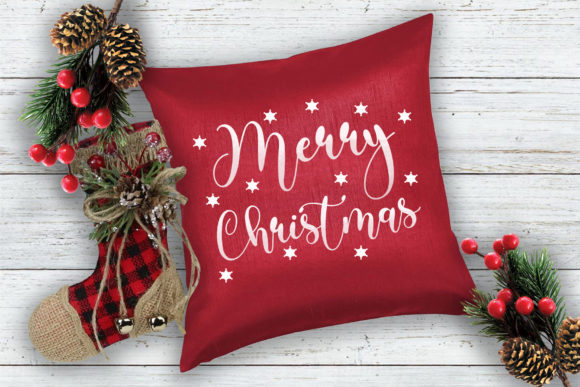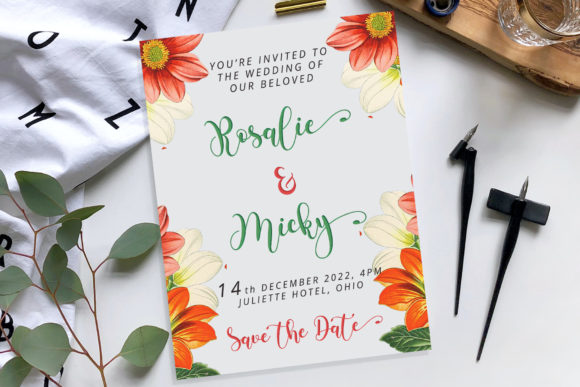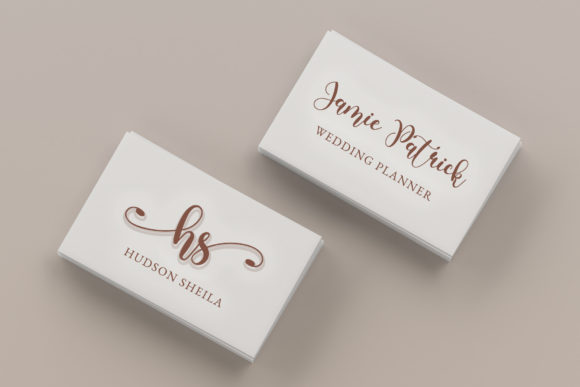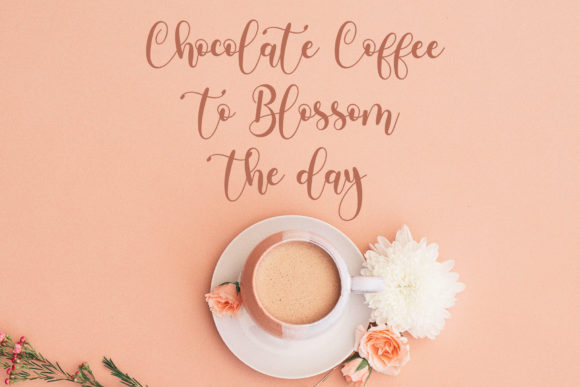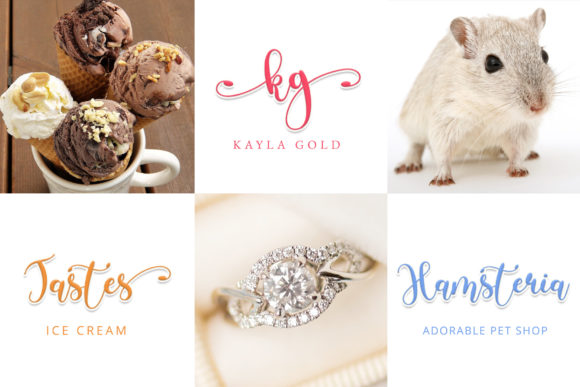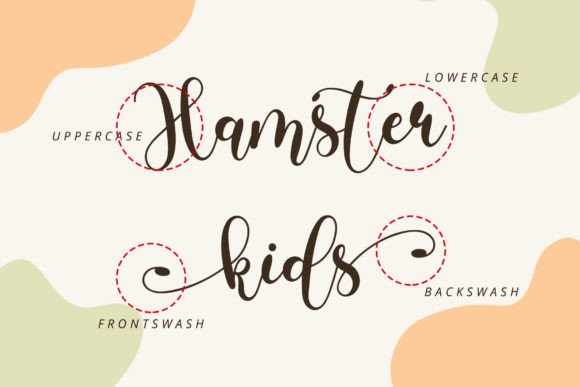
Introducing Hamsterkids Font: The Perfect Blend of Modern and Classical Calligraphy
Are you on the lookout for a font that can add a touch of playfulness and uniqueness to your designs? Look no further than Hamsterkids Font! This bouncy and playful calligraphy font combines modern elements with classical ones, making it the perfect addition to your typography collection.
What Makes Hamsterkids Font Special?
Hamsterkids Font is a one-of-a-kind calligraphy font that boasts a flowing, unique, and cute aesthetic. Its modern and classical blend makes it versatile enough to be used in a wide range of projects, from wedding invitations and branding to logos and social media graphics. Whether you’re a designer, crafter, or DIY enthusiast, Hamsterkids Font is sure to bring a smile to your face and a touch of whimsy to your creations.
Key Features of Hamsterkids Font
- Playful and Bouncy: Hamsterkids Font has a lively and energetic feel that’s perfect for designs that need a bit of personality.
- Modern and Classical Blend: This font seamlessly combines modern and classical elements, making it both unique and timeless.
- Flowing and Cute: The flowing lines and cute aesthetic of Hamsterkids Font make it perfect for designs that require a touch of whimsy.
- Versatile: Use Hamsterkids Font in a variety of projects, including wedding invitations, branding, logos, social media graphics, and more.
Hamsterkids Font is a dream come true for designers and crafters who want to add a personal touch to their creations. Whether you’re creating custom wedding invitations, designing a brand identity, or crafting handmade cards, this font is sure to inspire your creativity.
Use Cases for Hamsterkids Font
- Wedding Invitations: Add a touch of whimsy and romance to your wedding invitations with Hamsterkids Font.
- Branding and Logos: Use Hamsterkids Font to create a unique and memorable brand identity that stands out from the crowd.
- Social Media Graphics: Add a playful touch to your social media graphics, such as Instagram posts and Facebook covers.
- Crafting and DIY: Use Hamsterkids Font to create custom handmade cards, gift tags, and other craft projects.
Why Choose Hamsterkids Font?
With so many fonts available, why choose Hamsterkids Font? Here are just a few reasons:
- Unique and Playful: Hamsterkids Font is a one-of-a-kind font that adds a touch of playfulness to any design.
- High-Quality: This font is designed with high-quality and clarity in mind, ensuring that it looks great in any size or resolution.